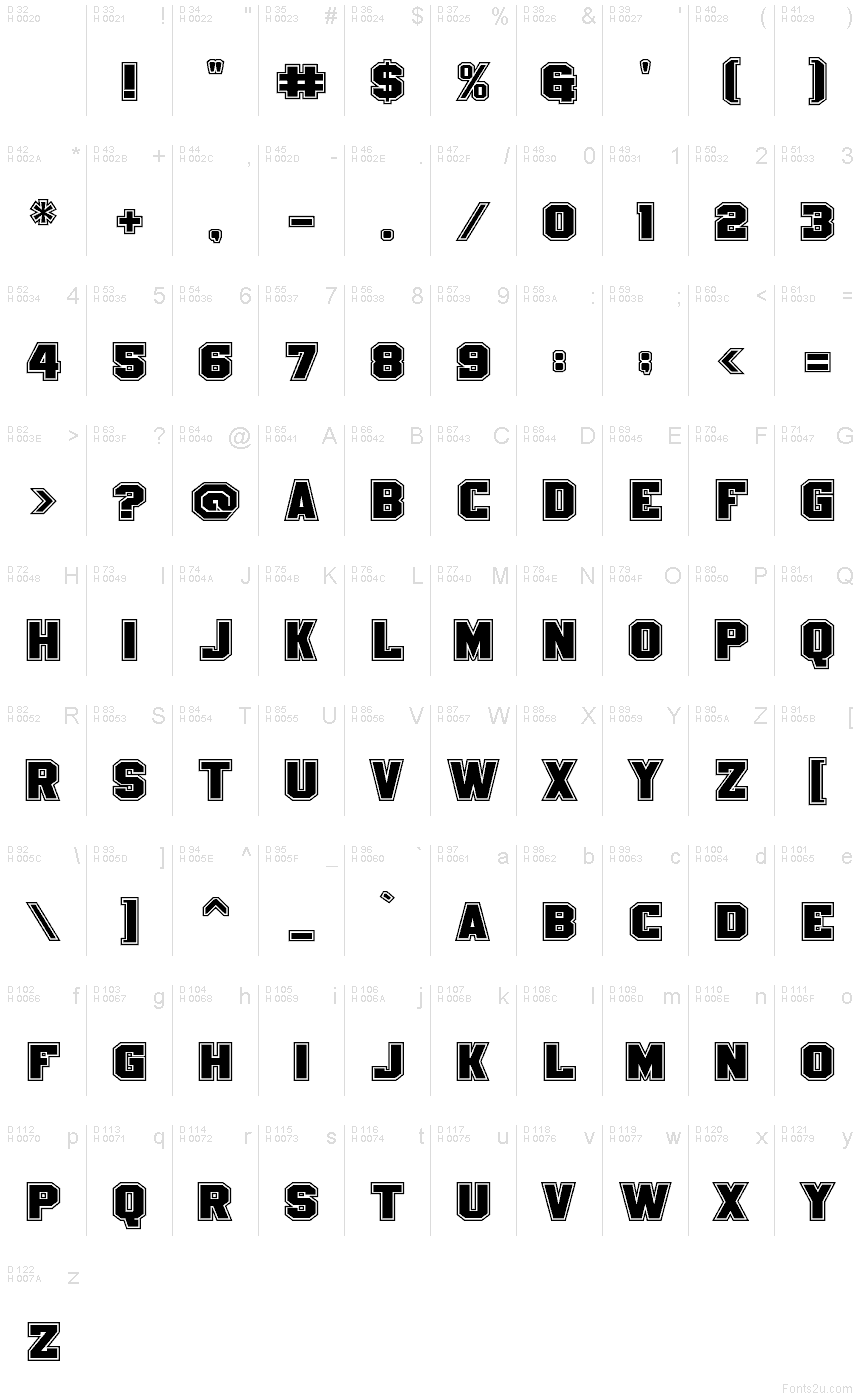
Golden Varsity Outline
Golden Varsity Outline font by Blankids is a free bold outlined old-school display font. Built in the Golden Varsity family’s blocky silhouette, it layers a thick outer stroke with a crisp inner contour, delivering that instant locker-room snap. Squared corners, stout verticals, and even spacing give headlines a confident, chant-like rhythm that reads strong from bleachers to billboards.
Using Golden Varsity Outline, your sports logos, jersey numbers, pep rally posters, championship banners, campus event flyers, spirit wear, and podcast covers get classic athletic swagger without fuss. This free font shines when set large with a touch of tracking. Pair it with a clean, neutral sans for body copy to keep the spotlight on those punchy, marquee-worthy letters.